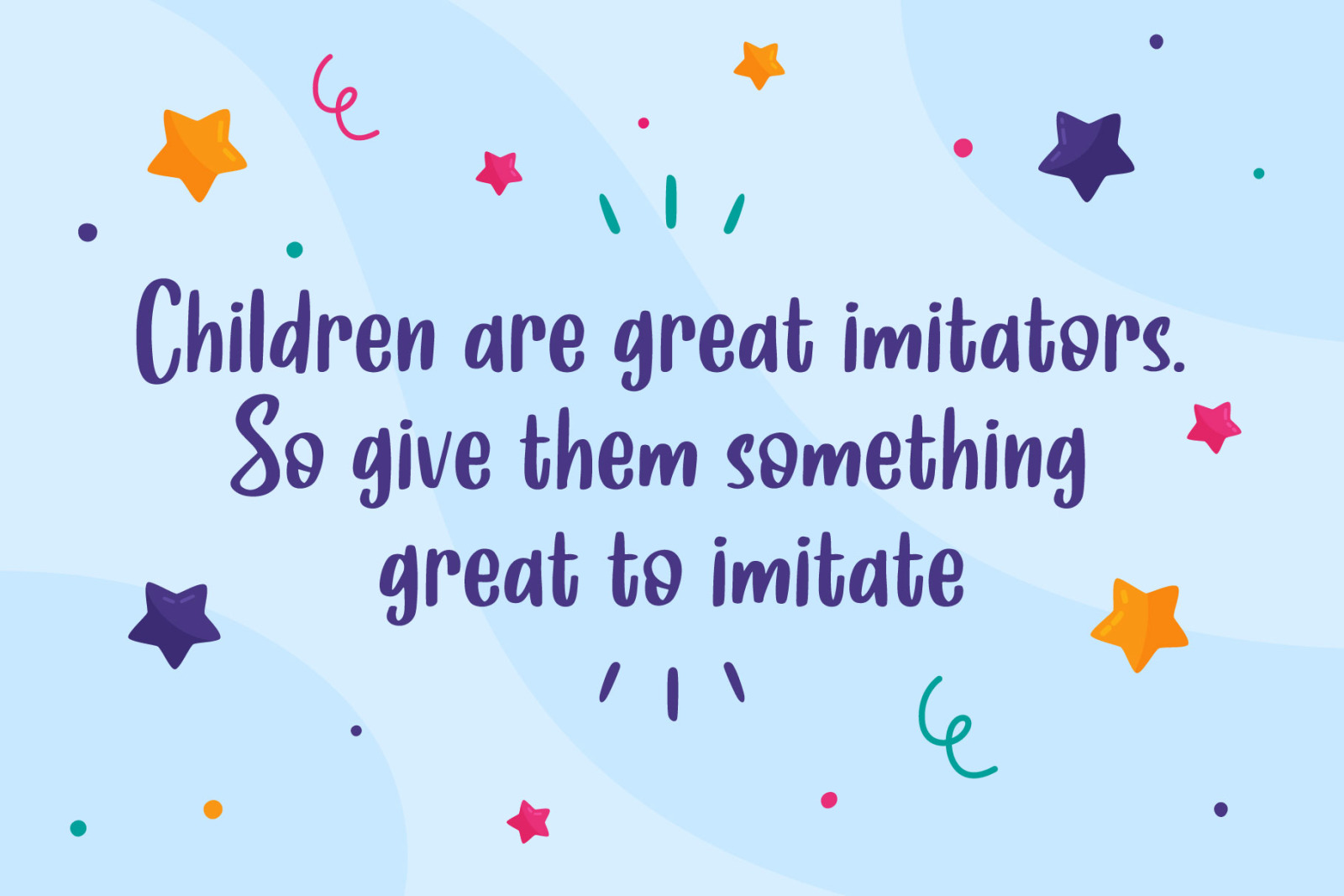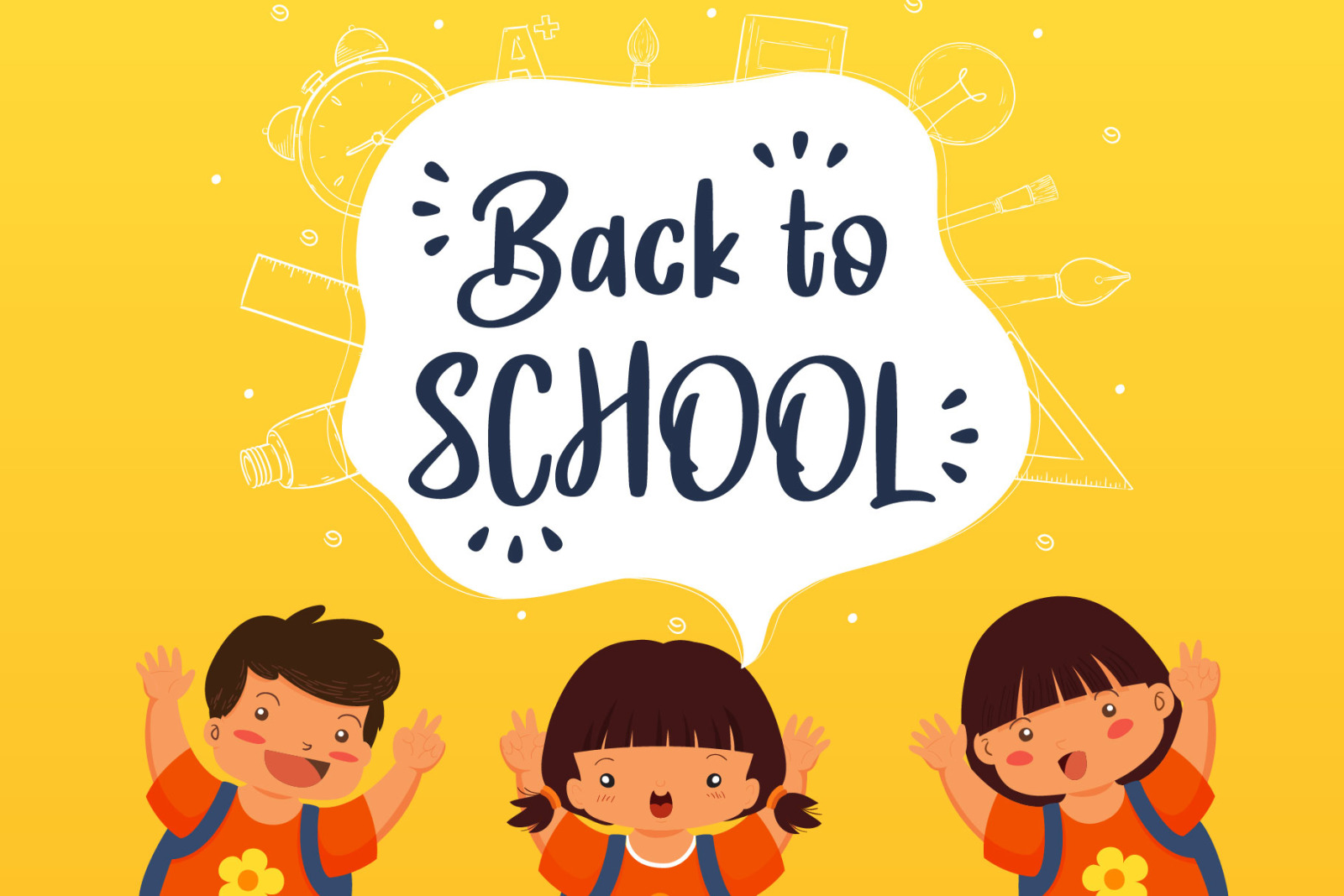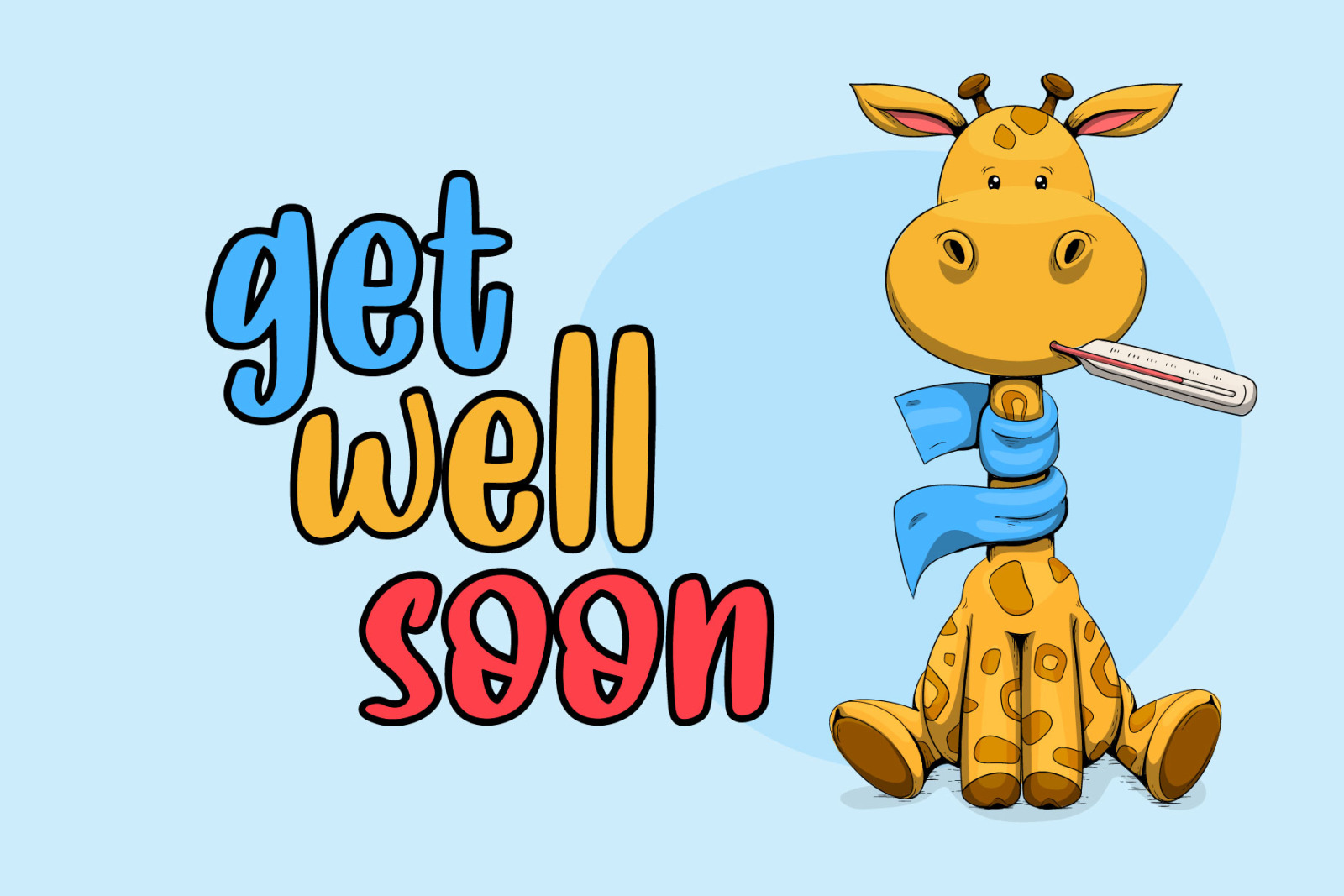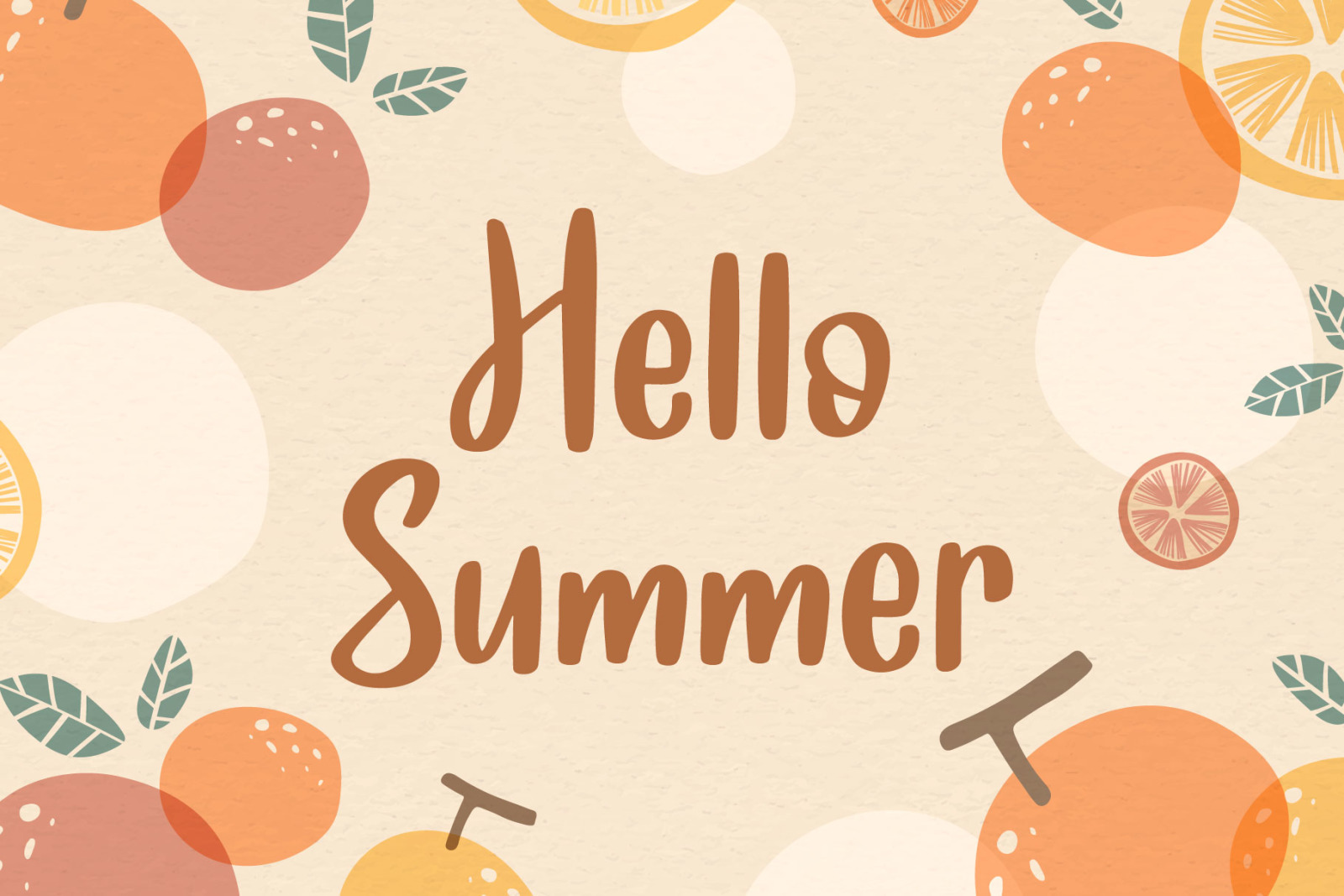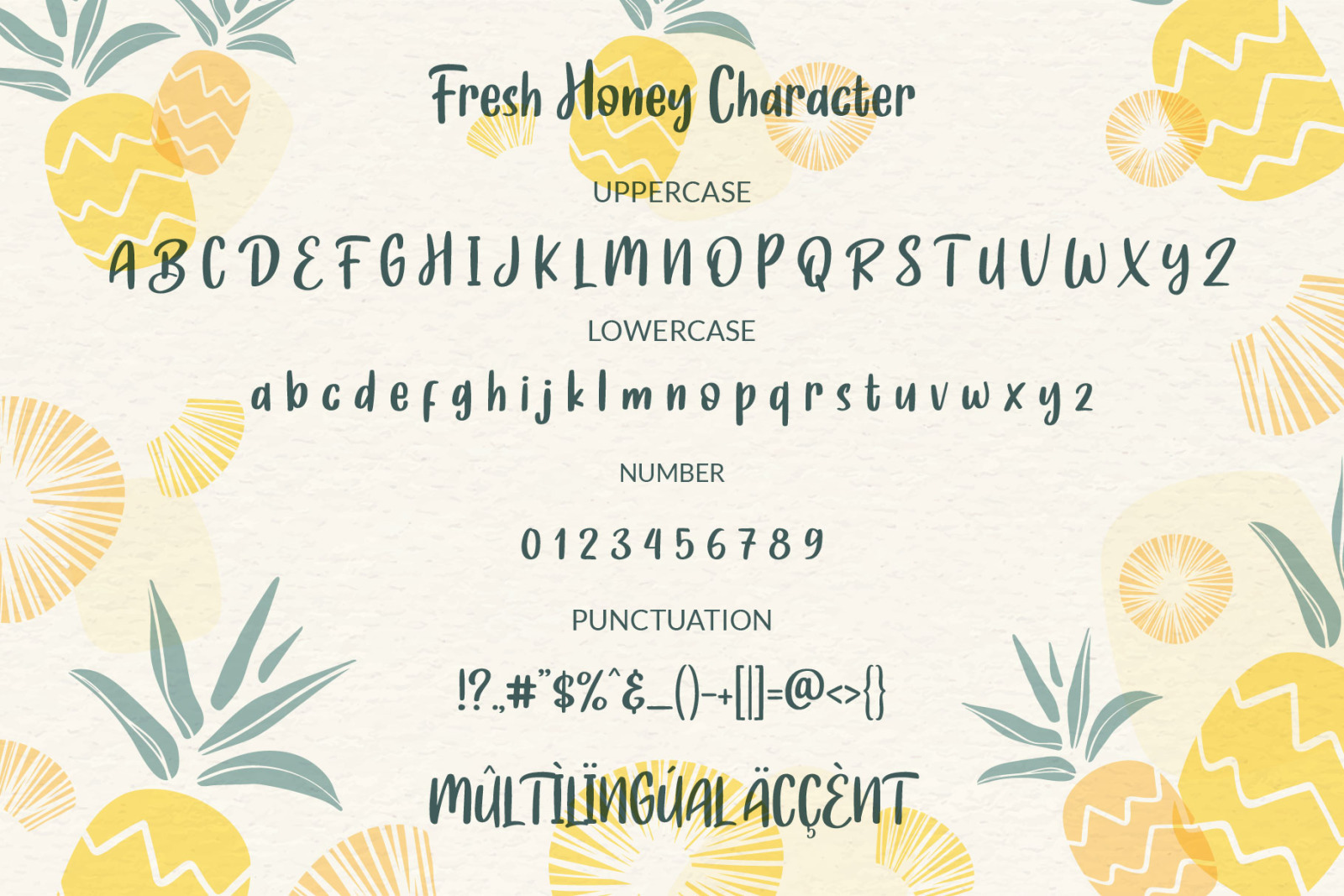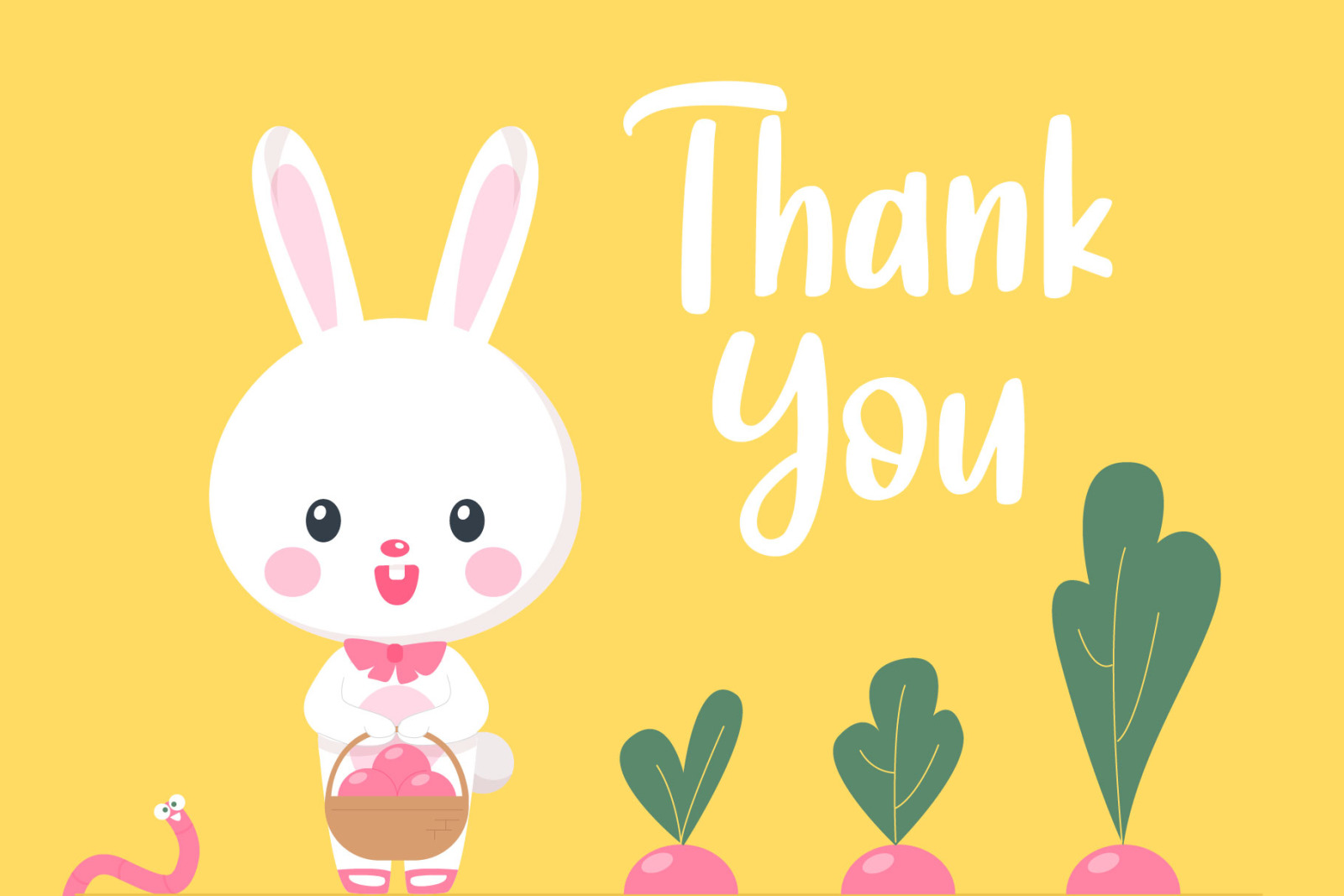
Fresh Honey - Playful Handwritten Font
Fresh Honey is a sweet, funny, cute handwritten font. Clean and soft, this font is the perfect fit for all of your crafty DIY projects, cricut, logos, branding, social media, etc.